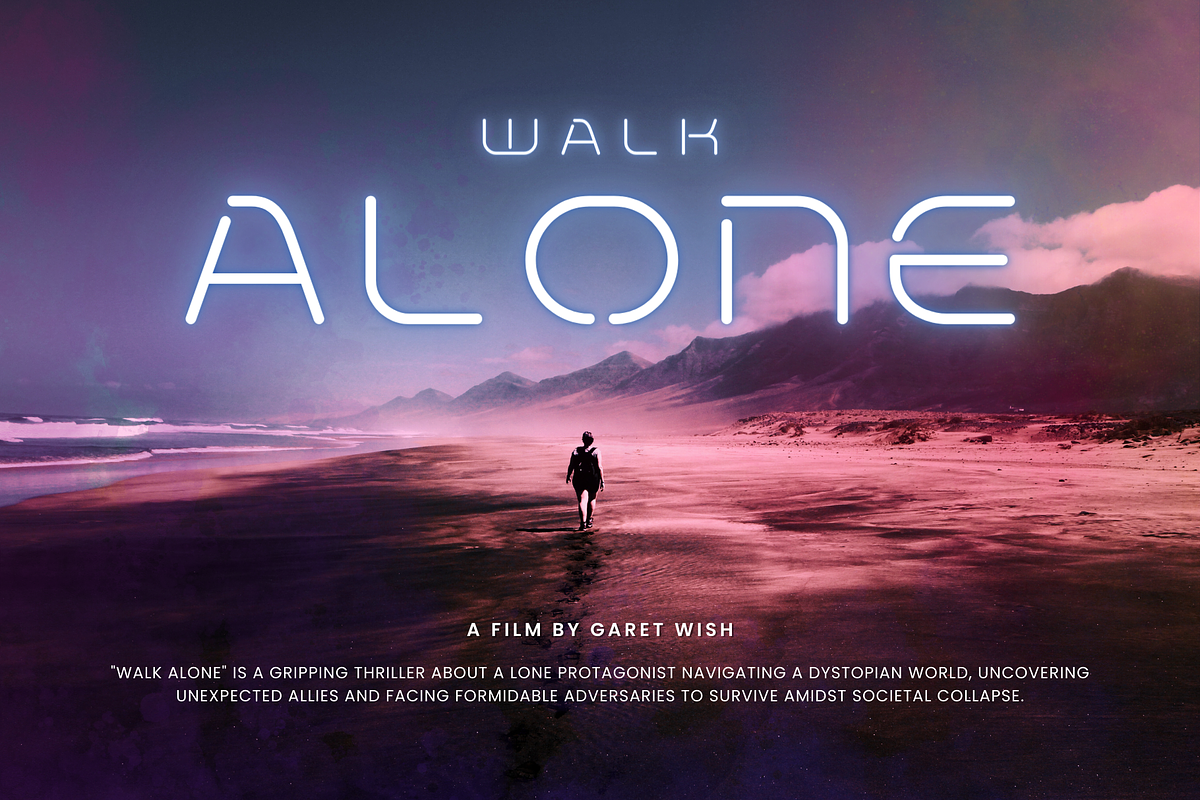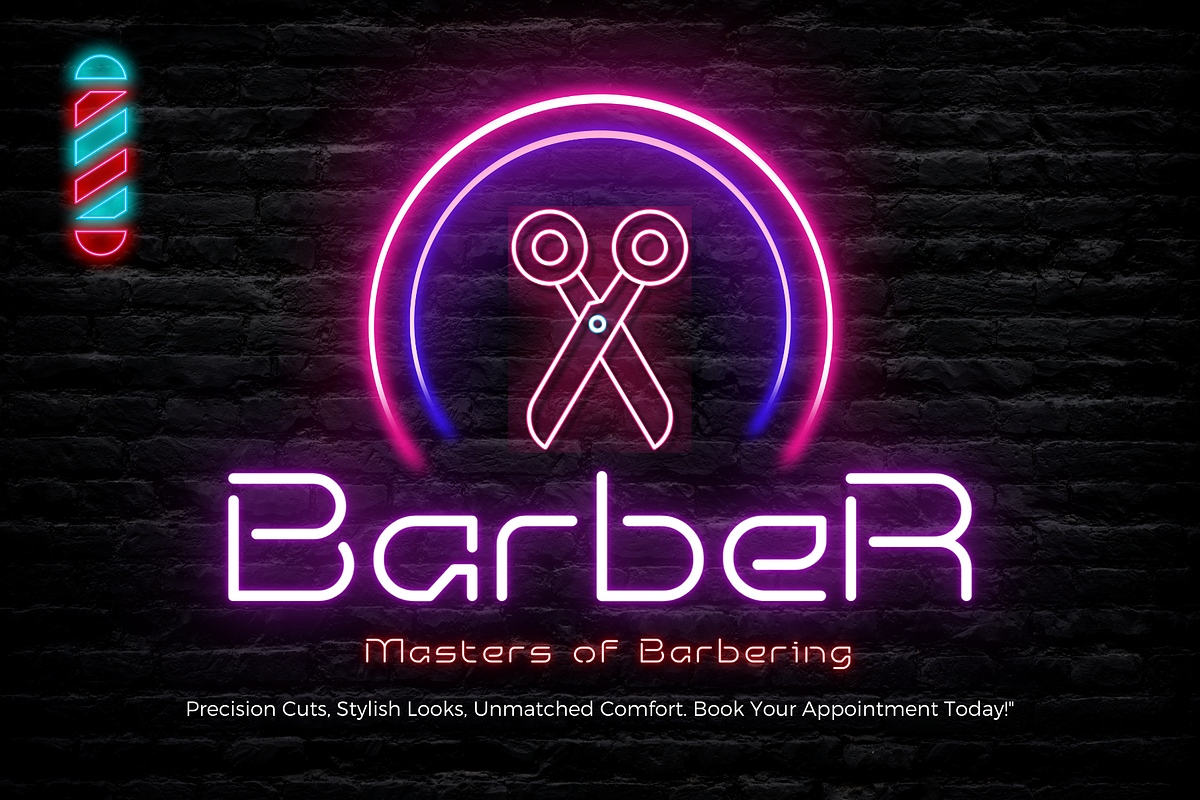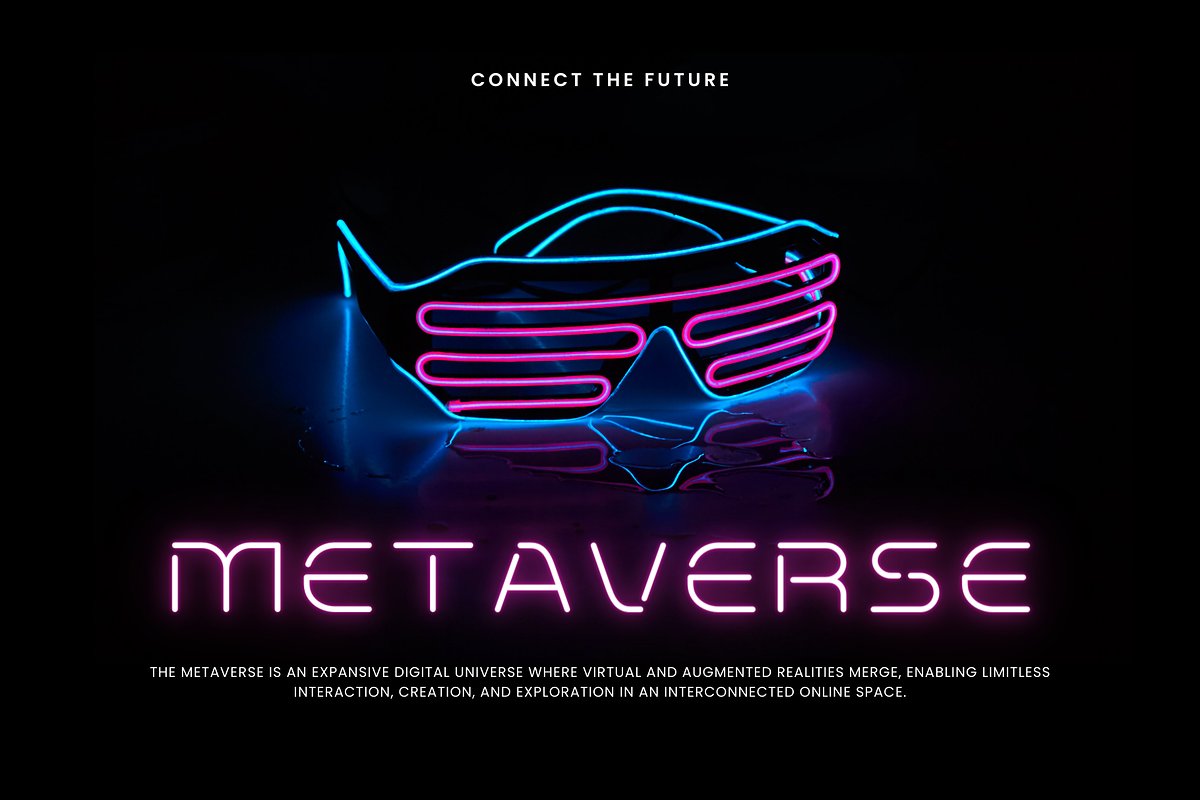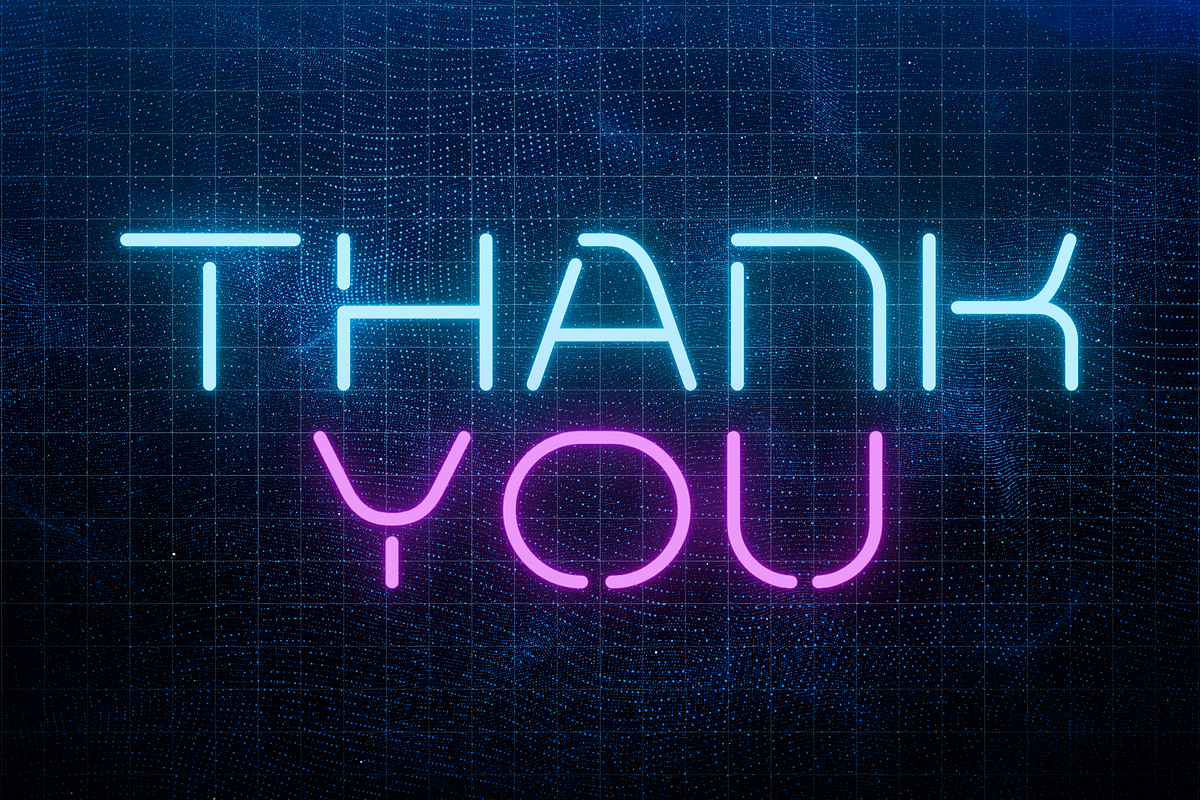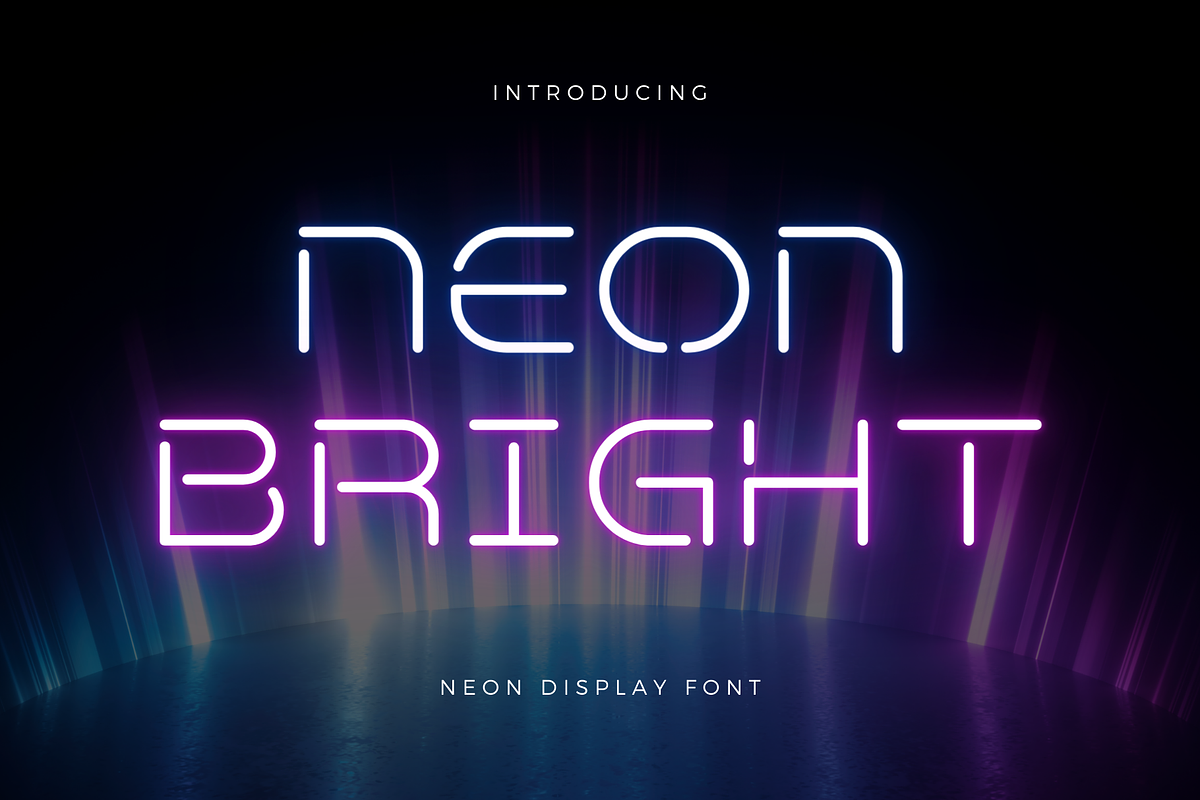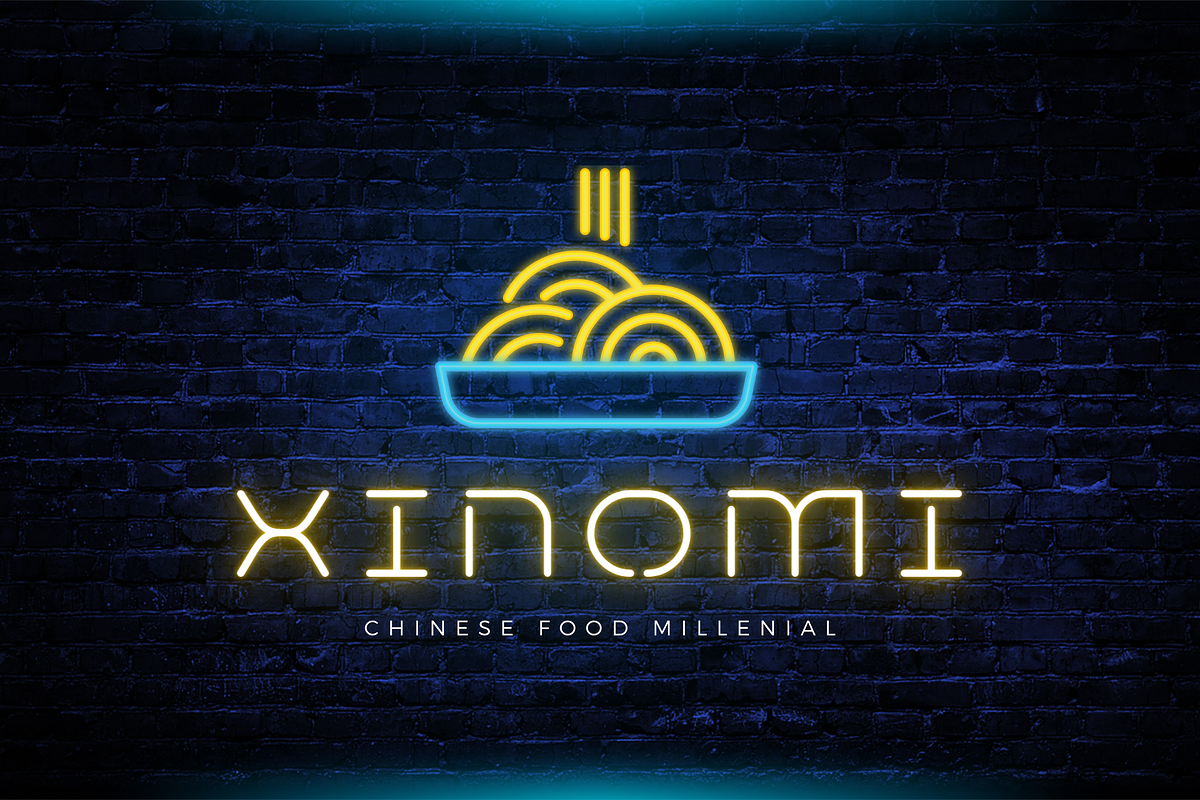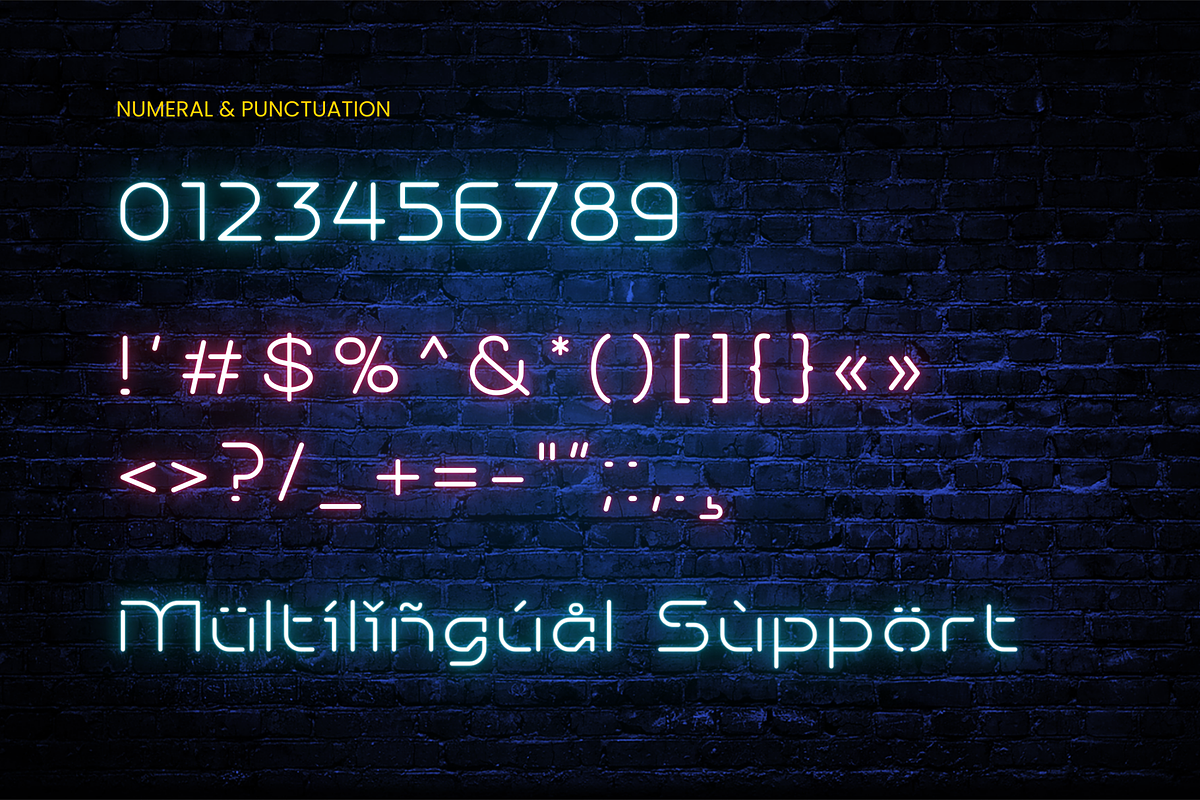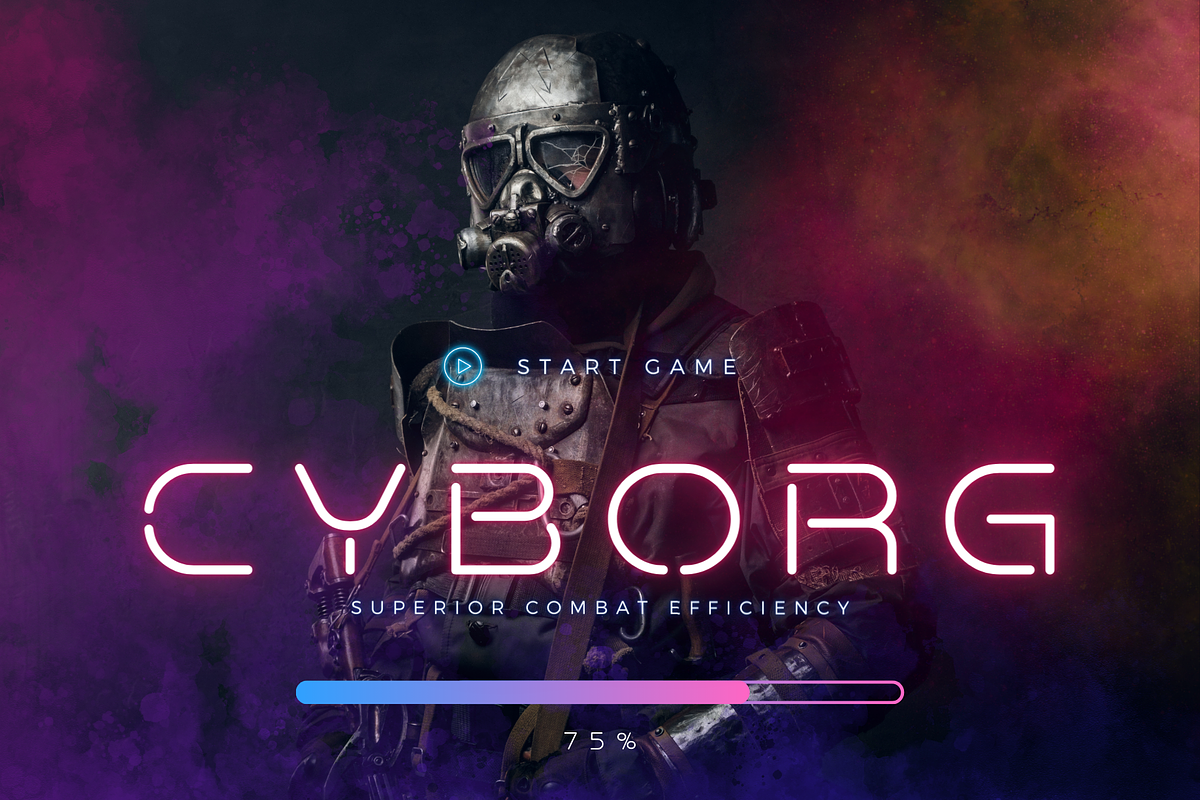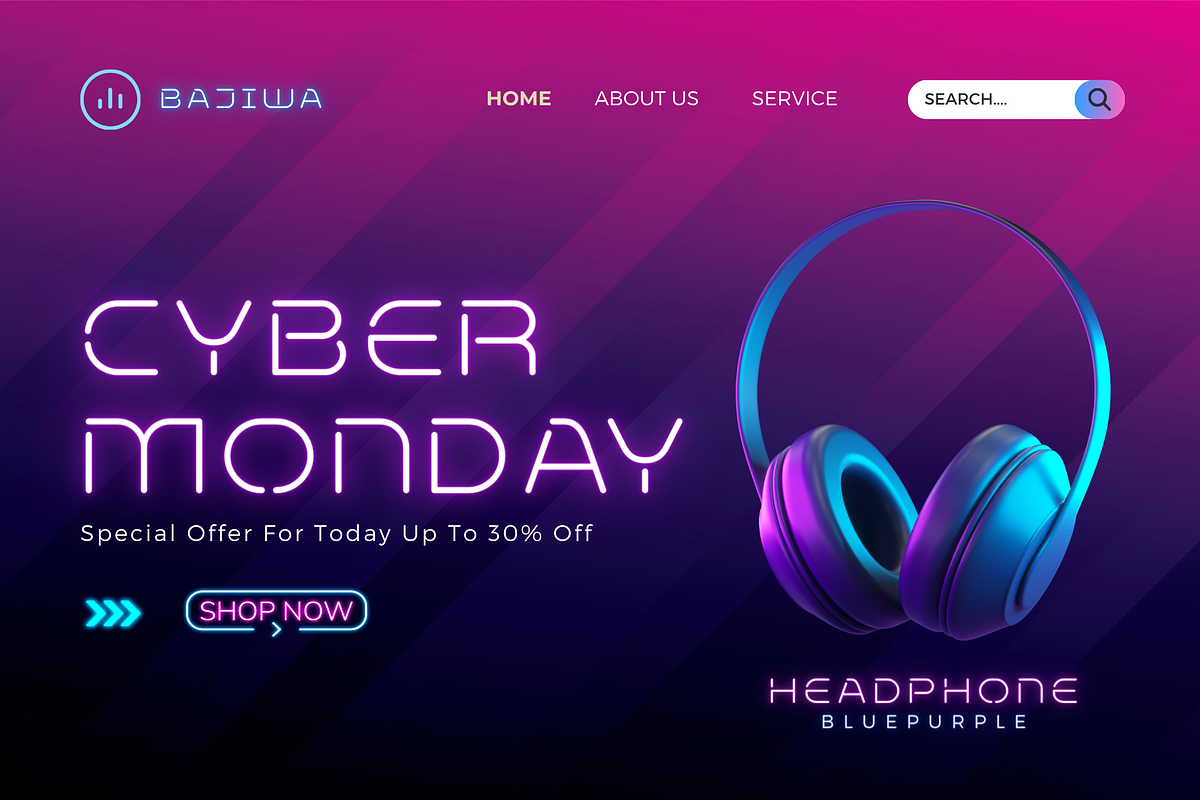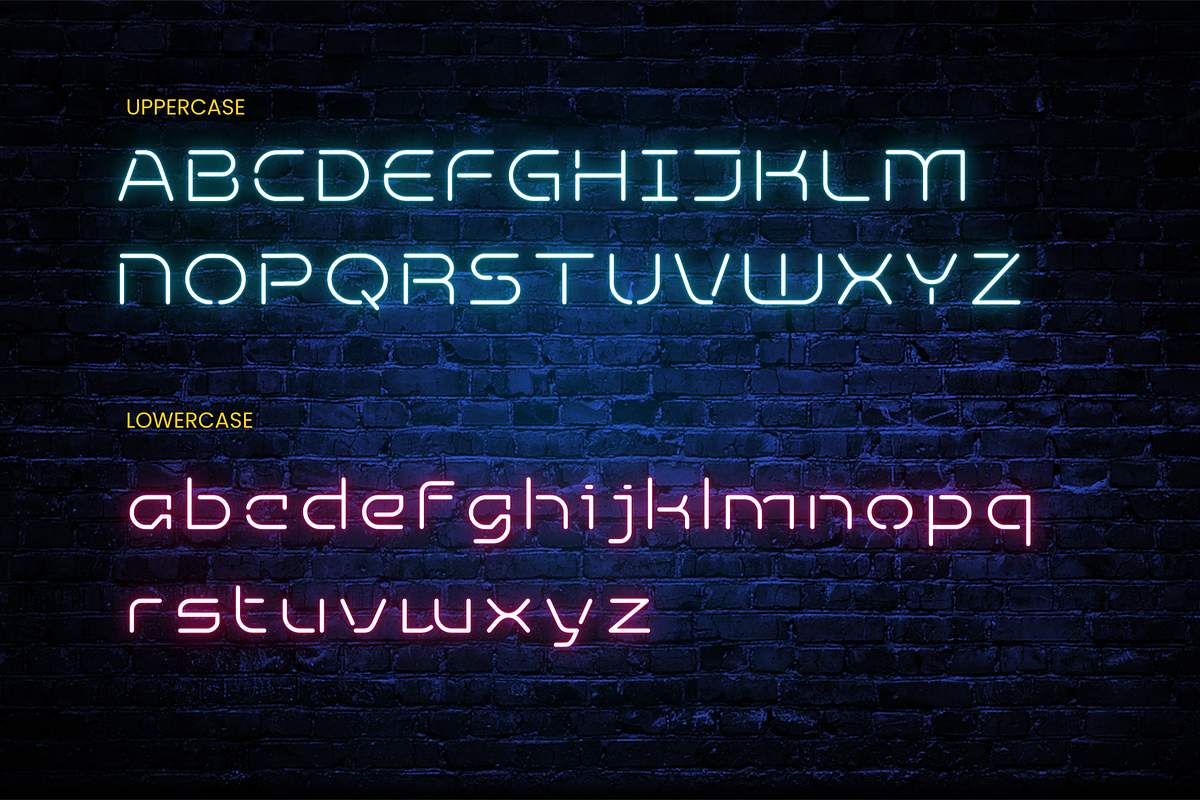
Neon Bright – Neon Display Font
Introducing “Neon Bright,” a modern monoline font that dazzles with its vibrant neon glow. With its sleek and continuous strokes, this font captures the essence of contemporary neon signage. Perfect for projects that need a touch of futuristic flair, such as event posters, digital designs, or branding materials. “Neon Bright” ensures your designs shine with a luminous and stylish edge, making a striking impression in any setting.